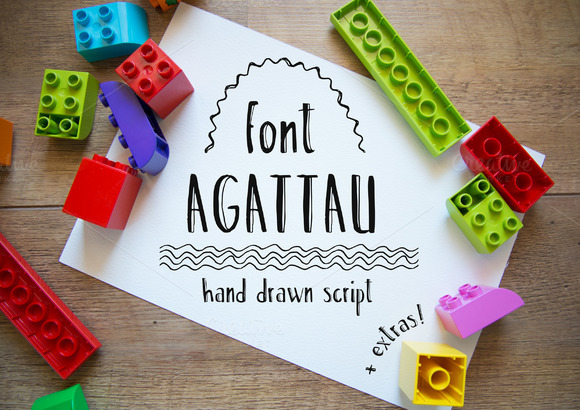
The Agattau Font: A Lovely Hand-Drawn Delight for Designers and Crafters
I’ll never forget the time I was working on a project for a client who wanted a custom sign designed for their boutique store. I had a clear vision of the look and feel I wanted to achieve, but I was struggling to find the perfect font to bring it all together. That’s when I stumbled upon the Agattau font by Patchpo Graphics. It was love at first sight! 💕
As a designer, I’m always on the lookout for unique and versatile fonts that can elevate my work. And Agattau did just that. In this article, I’ll share my experience with this lovely hand-drawn font, its features, and how to make the most of it in various design platforms.
An Honest Review of Agattau Font
So, what makes Agattau special? Here are some things I love about this font:
- ✨ Unique hand-drawn style that’s perfect for creative projects
- 💃 Supports OpenType features, glyphs, and stylistic alternates
- 🎨 Versatile and suitable for various design projects, from signs to digital media
Of course, no font is perfect, and Agattau has a few minor quirks:
- 🤔 Some characters may not work well in all design software or platforms
- ⚠️ Limited language support, so double-check compatibility before use
The Story Behind Agattau Font
Patchpo Graphics, the creator of Agattau, is a small design studio passionate about crafting unique and beautiful fonts. According to their story, Agattau was inspired by traditional hand-drawn lettering and designed to bring a personal touch to creative projects.
| Author | Silvia Porcu |
| What type of projects is Agattau suitable for? | Agattau is versatile and can be used for various projects, including signs, digital media, branding, and more. |
| Does Agattau support OpenType features? | Yes, Agattau supports OpenType features, glyphs, and stylistic alternates, making it a great choice for creative designs. |
Agattau is a lovely hand-drawn font that can add a personal touch to your designs. With its unique style, versatility, and OpenType features, it’s perfect for designers, crafters, and creative hobbyists looking to elevate their work.